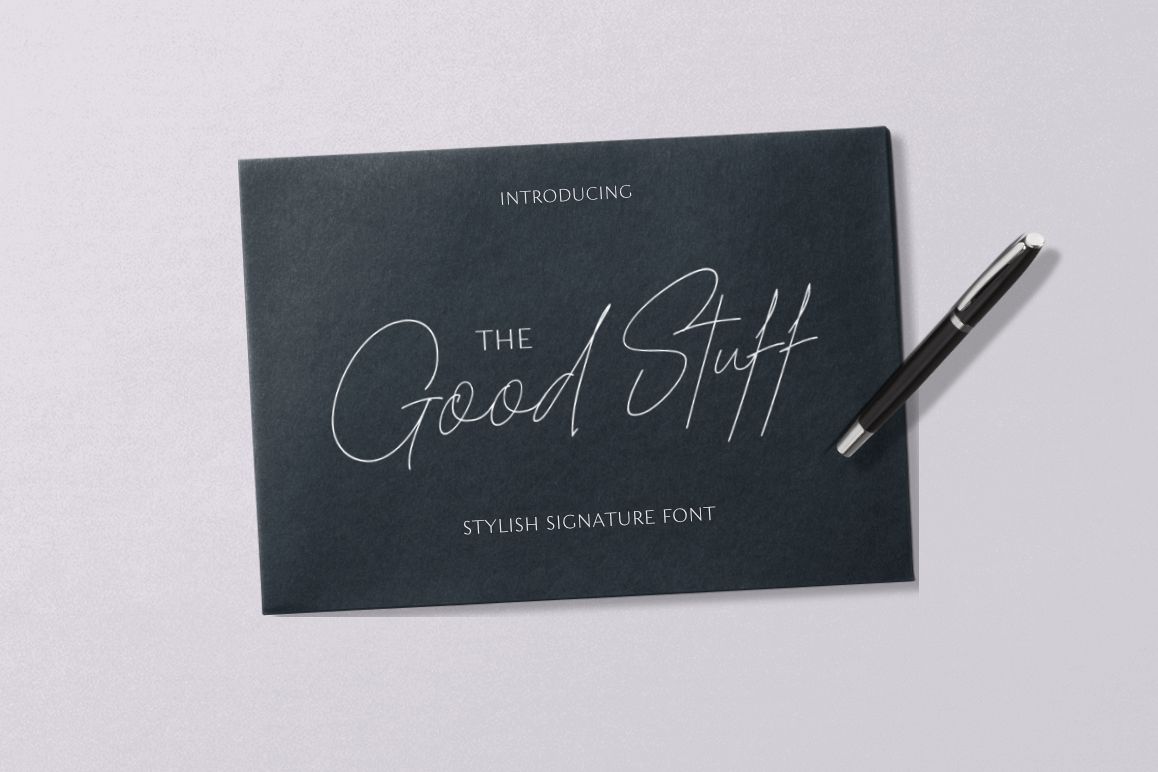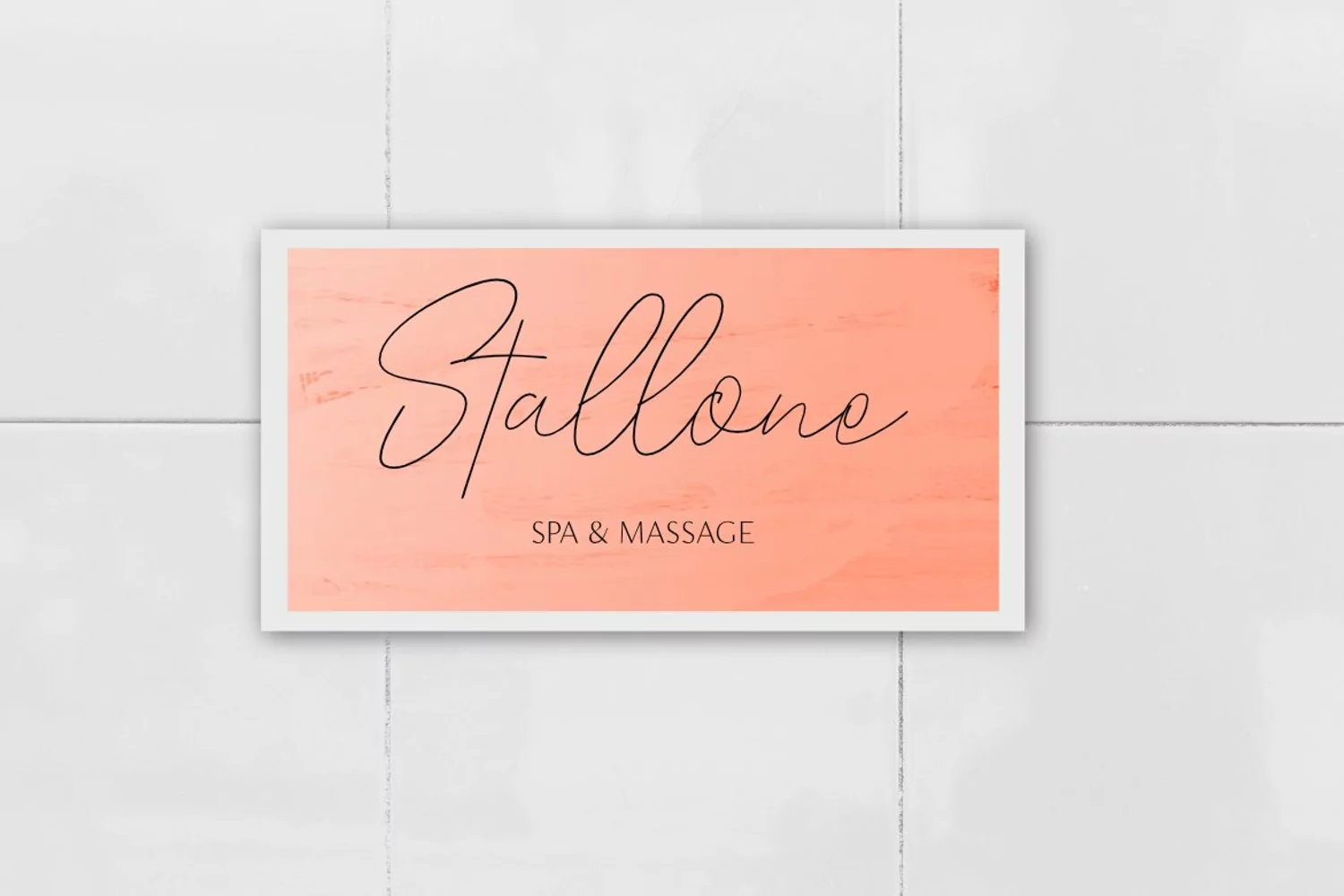
The Good Stuff Signature
“The Good Stuff” is a handwritten signature script with a natural flow. This font is a good choice for Branding, High-end, sophisticated Branding design.
Fonts include multilingual support.